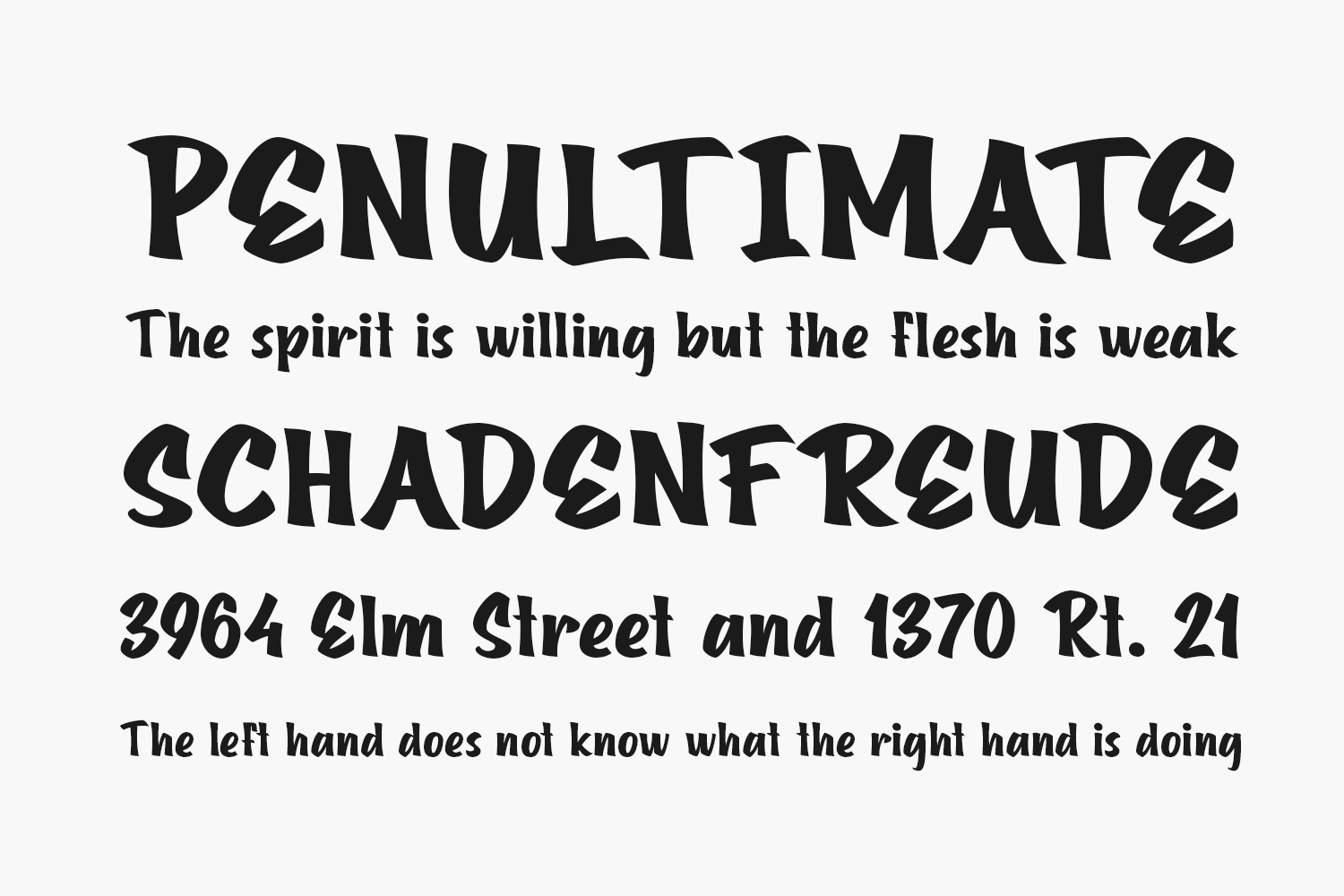
Bostana Free Font has an energic style. It can be applied to many design themes such as sports designs, children & youth designs, designs that are looking for a fun mood, and much more. Bostana Free Font was designed by Kong Font and is free for personal use only. Please purchase the full version for commercial use.